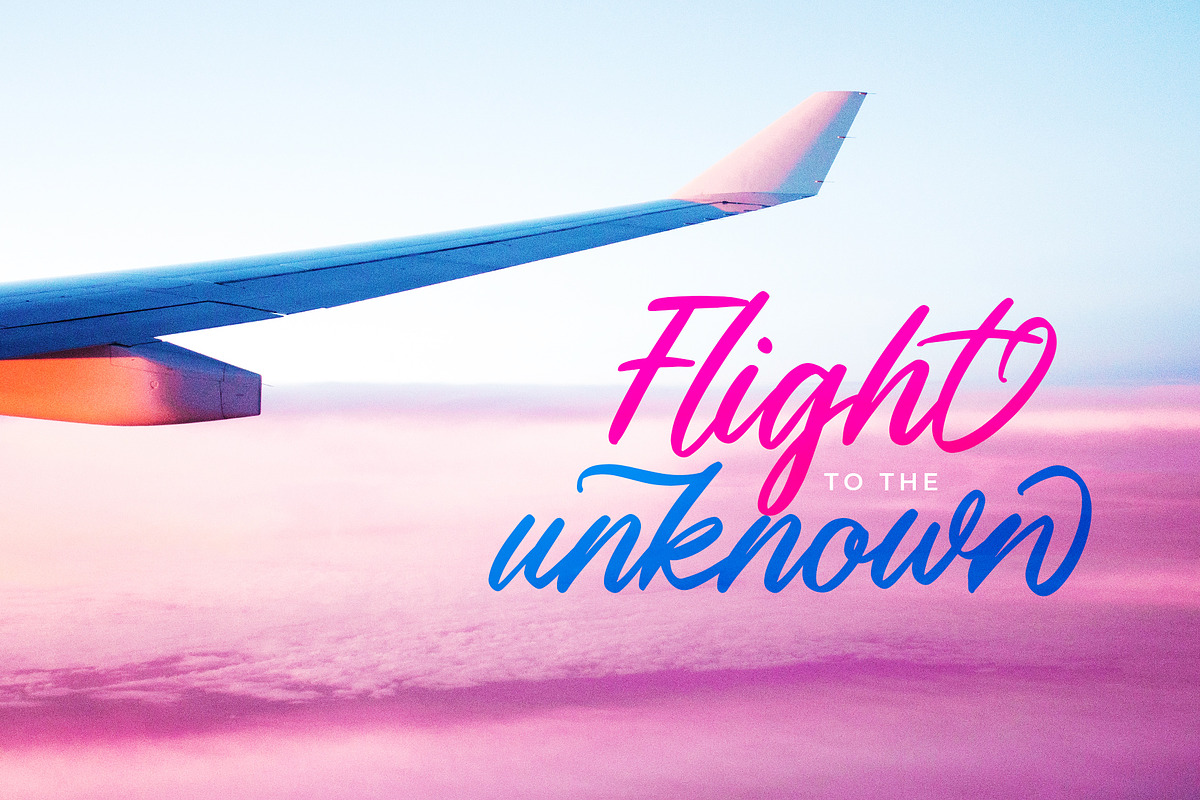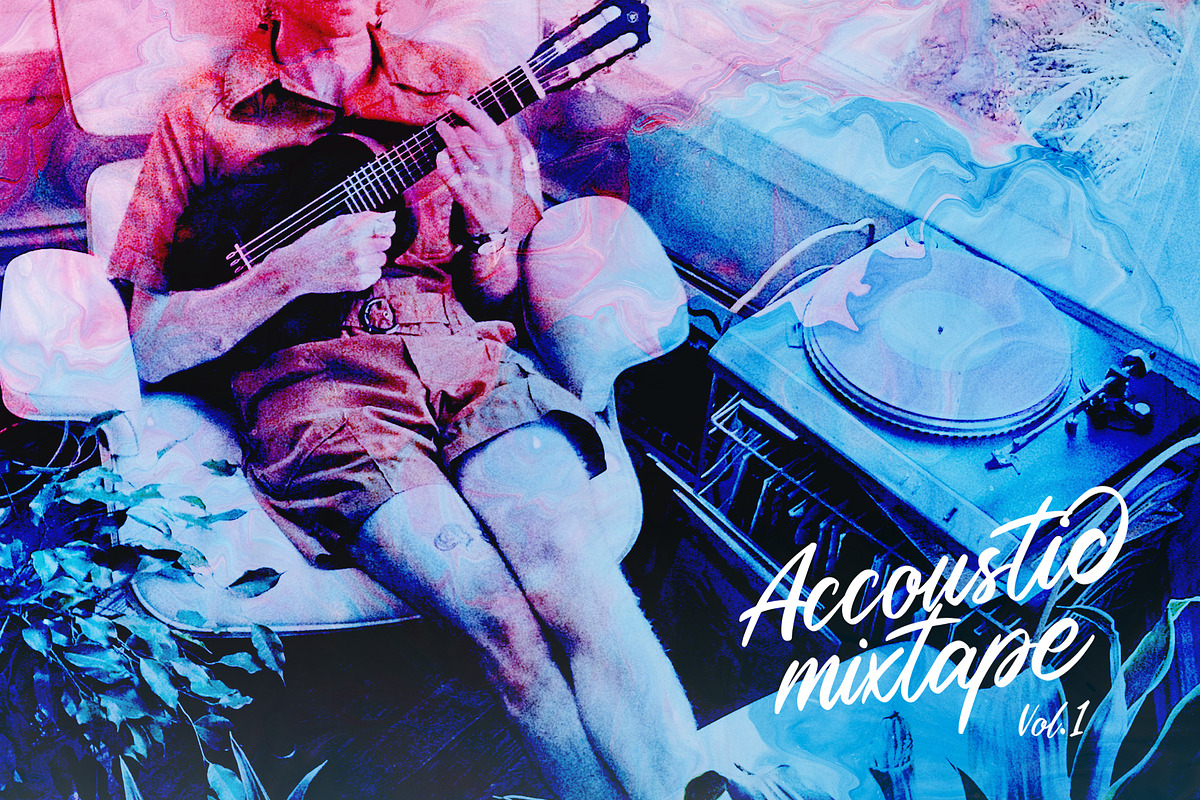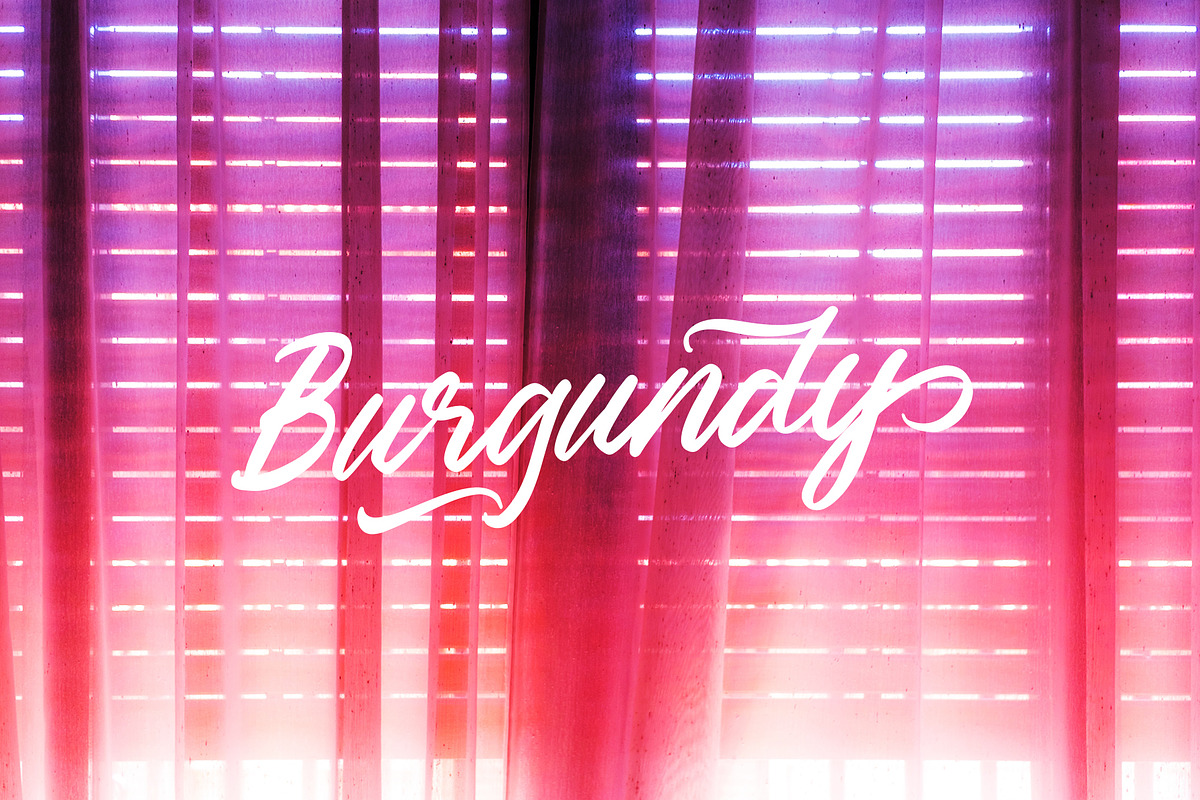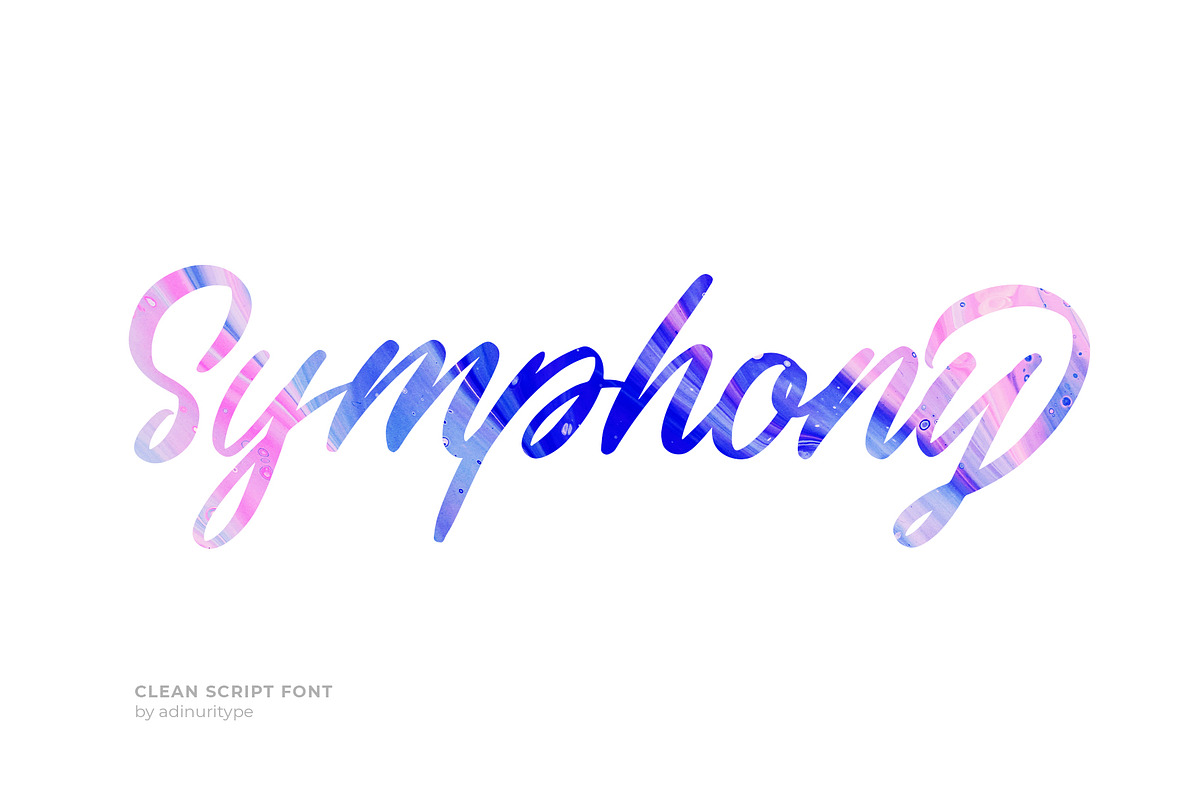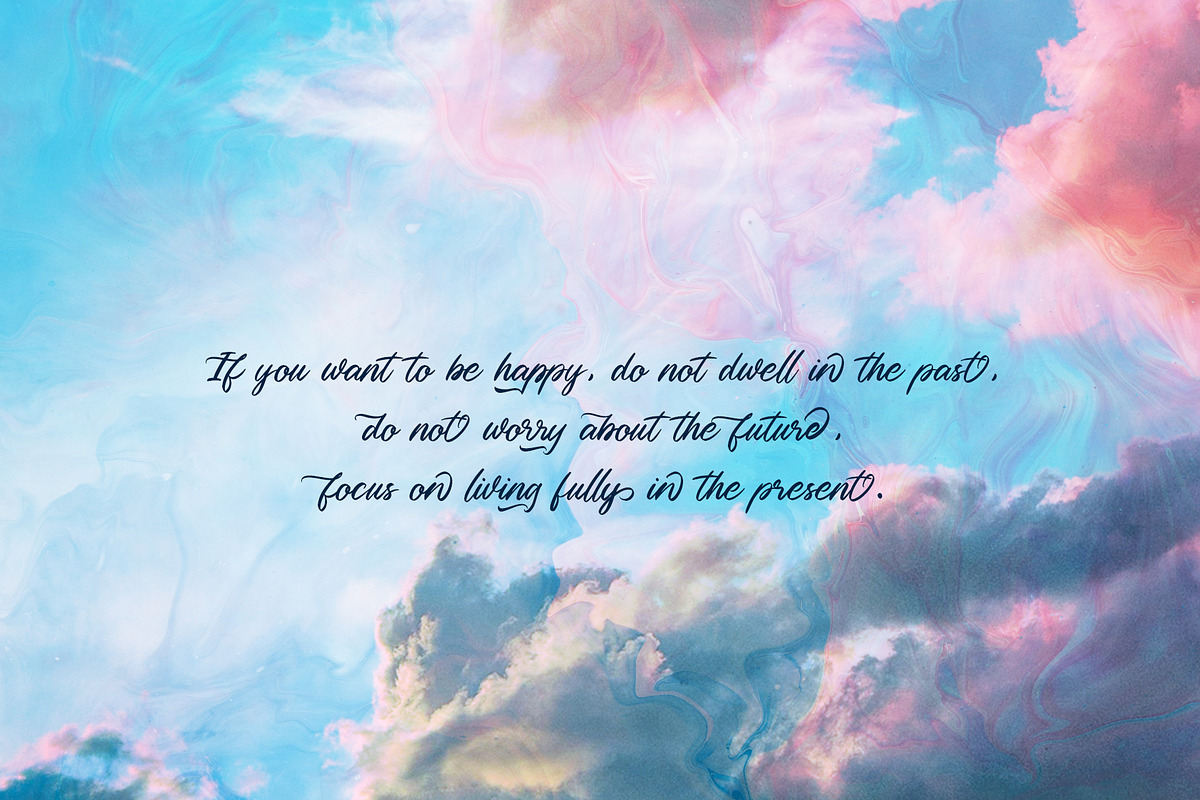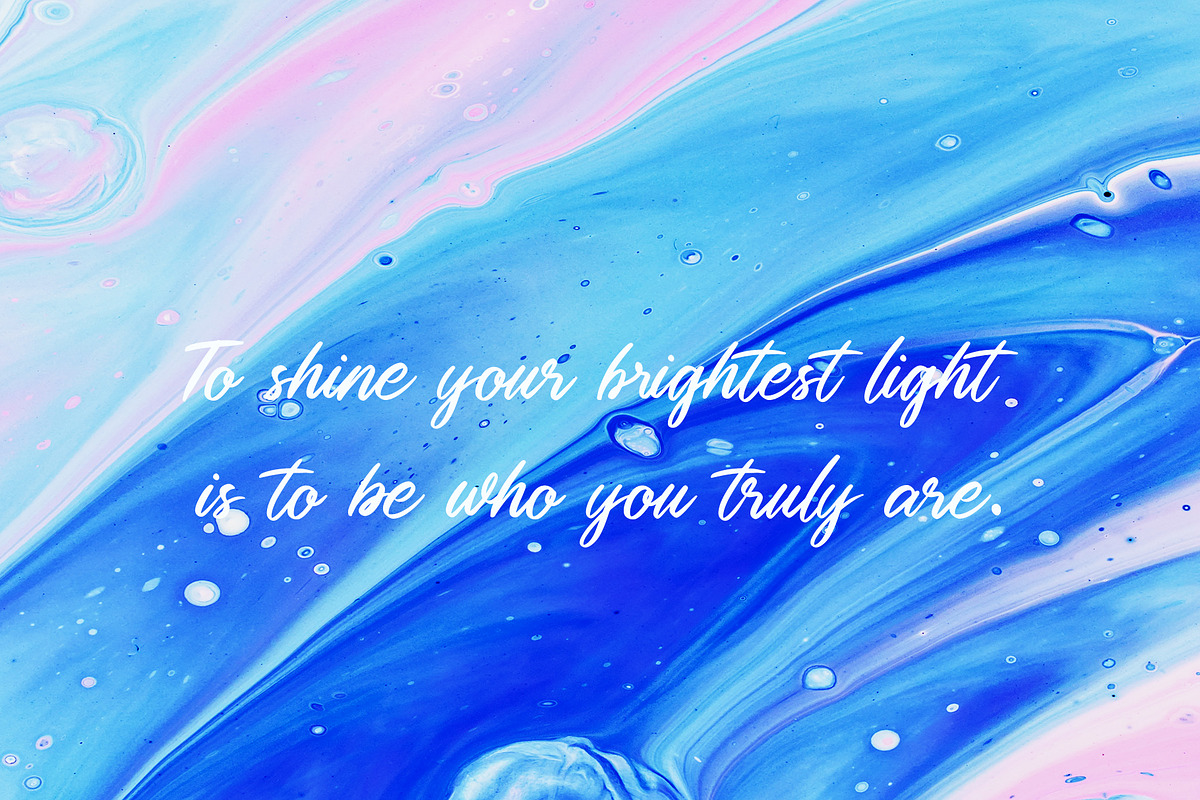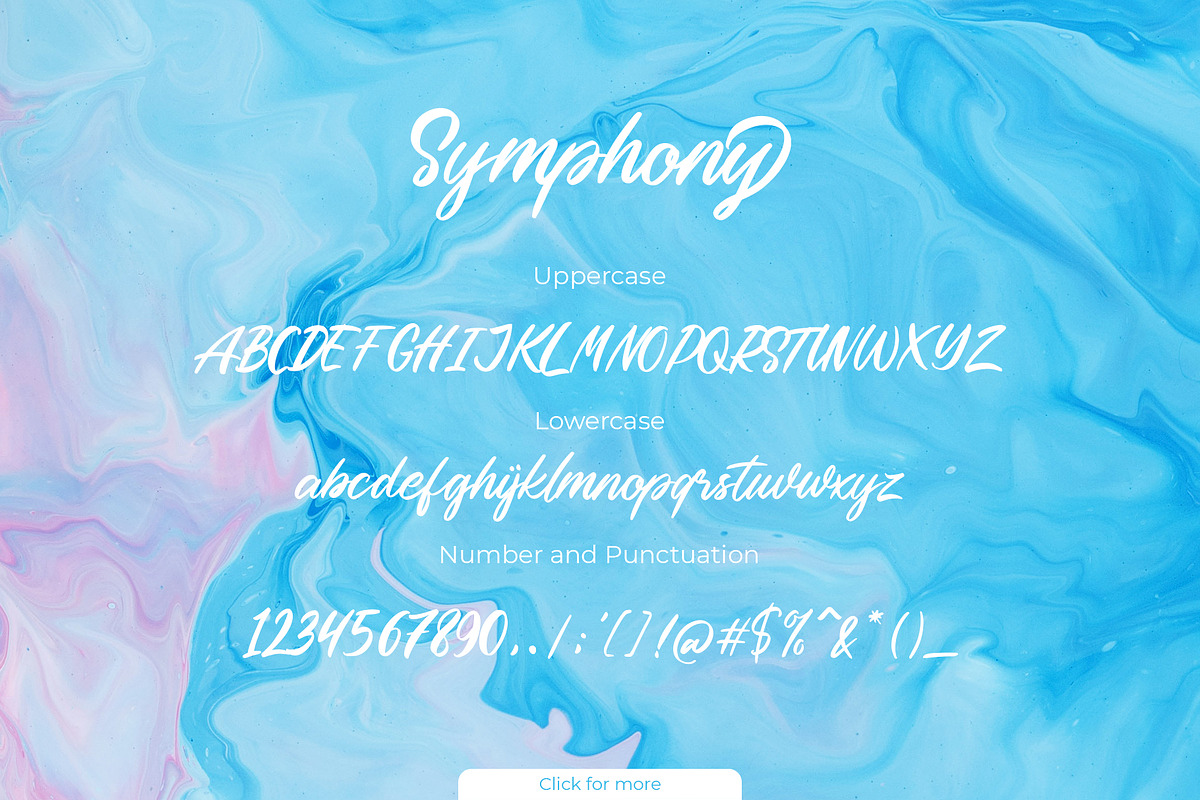
Symphony Script Font
Symphony is a hand written typeface with a Clean Elegant style. Created on iPad Procreate and tweaked on Adobe Illustrator, it’s looks best for quotes, Brand and identity, Poster Headline, Body text and etc.